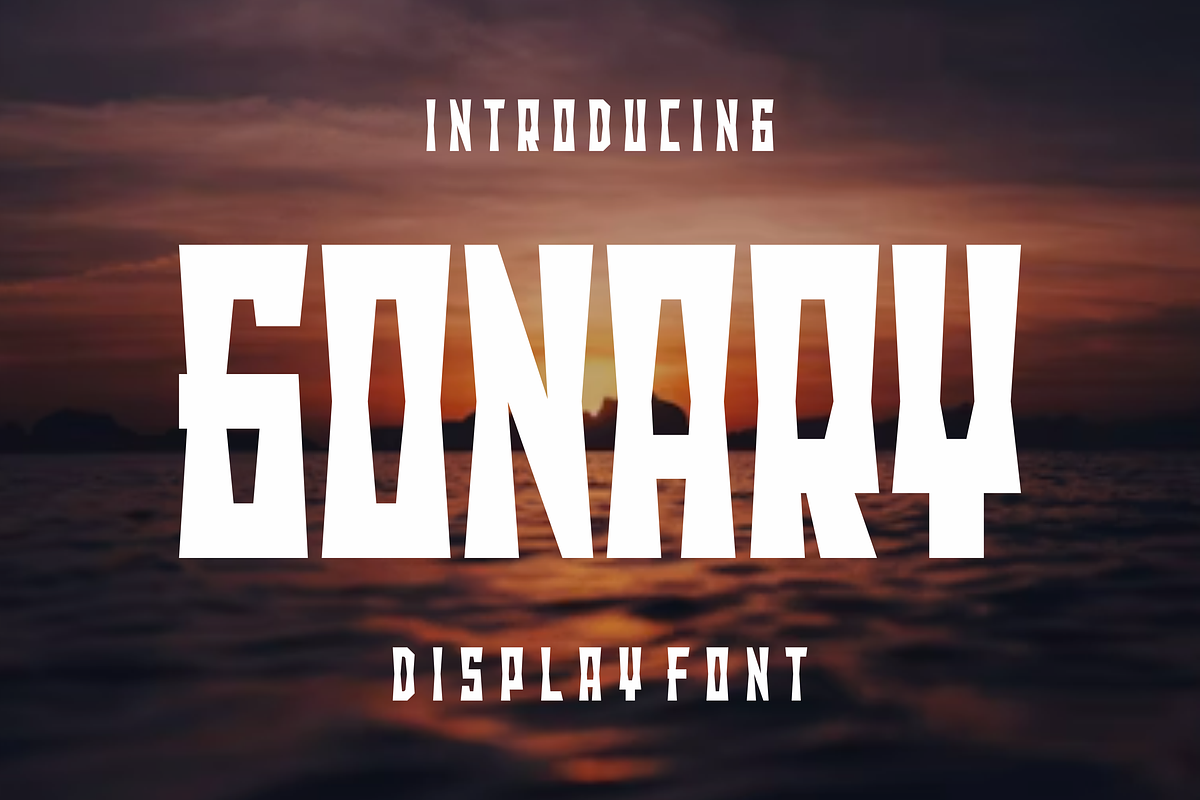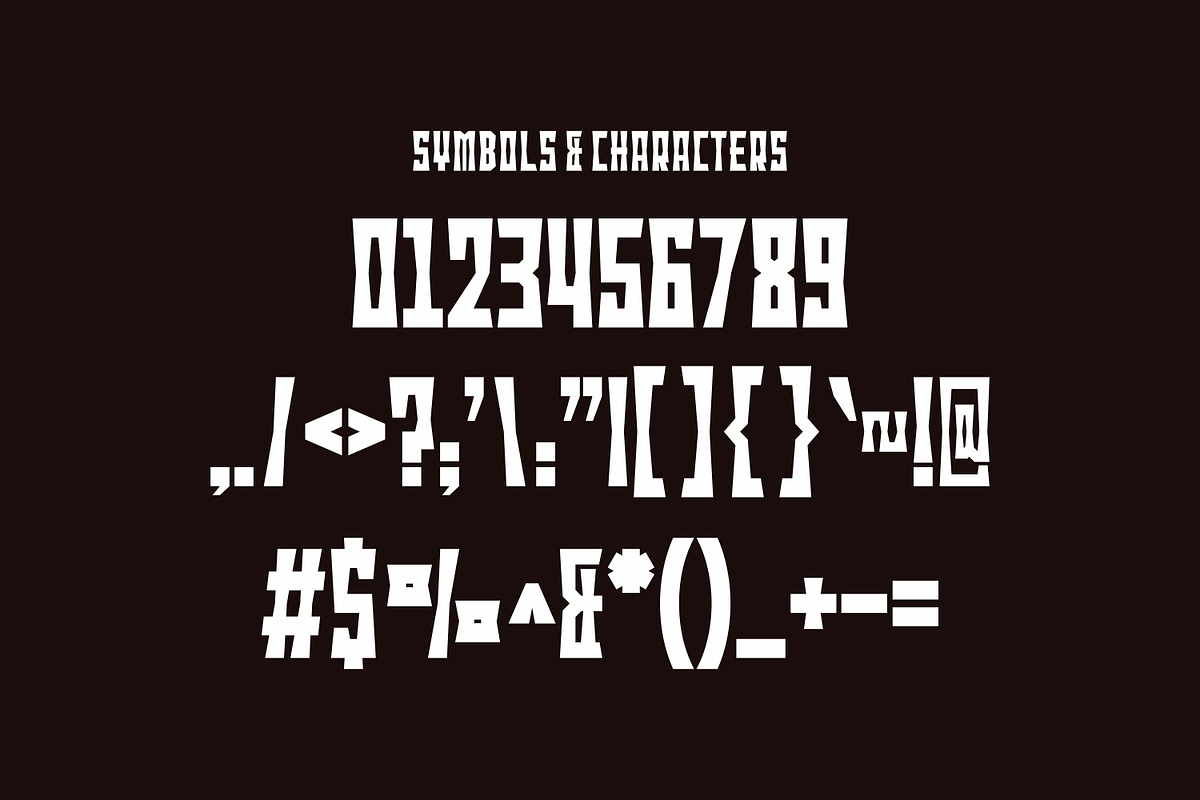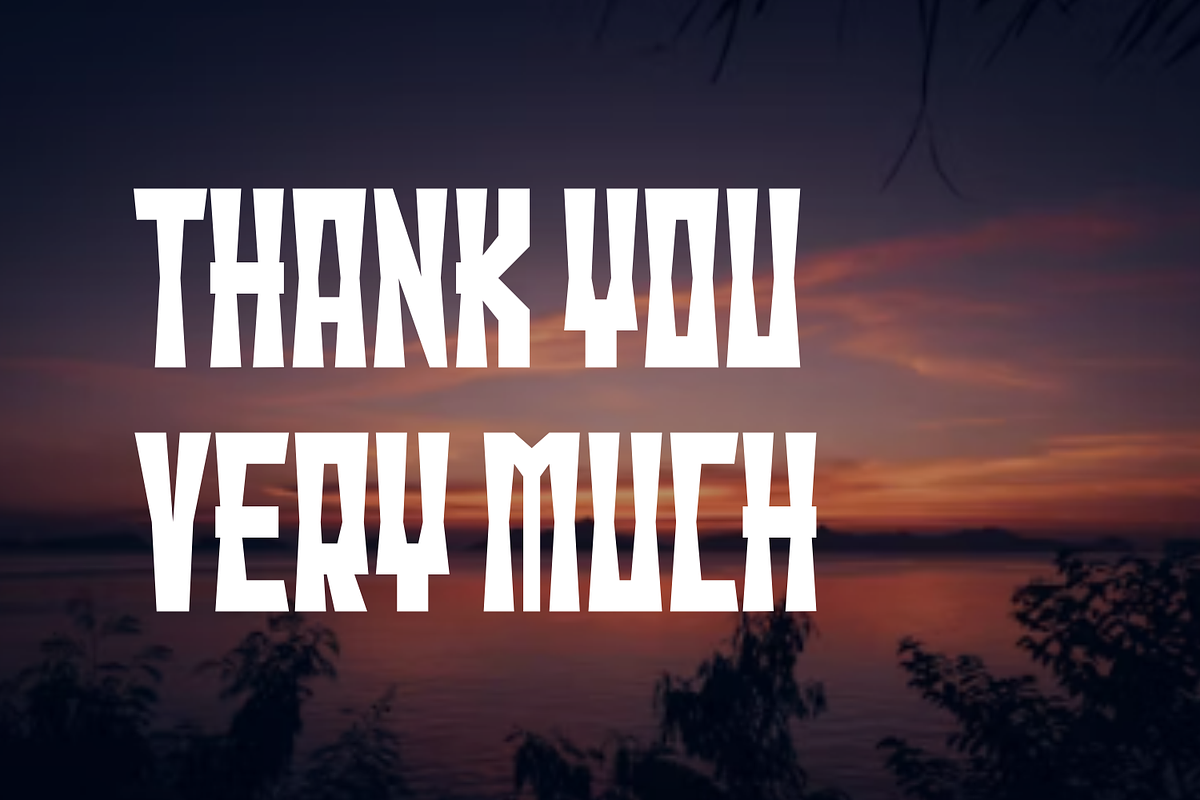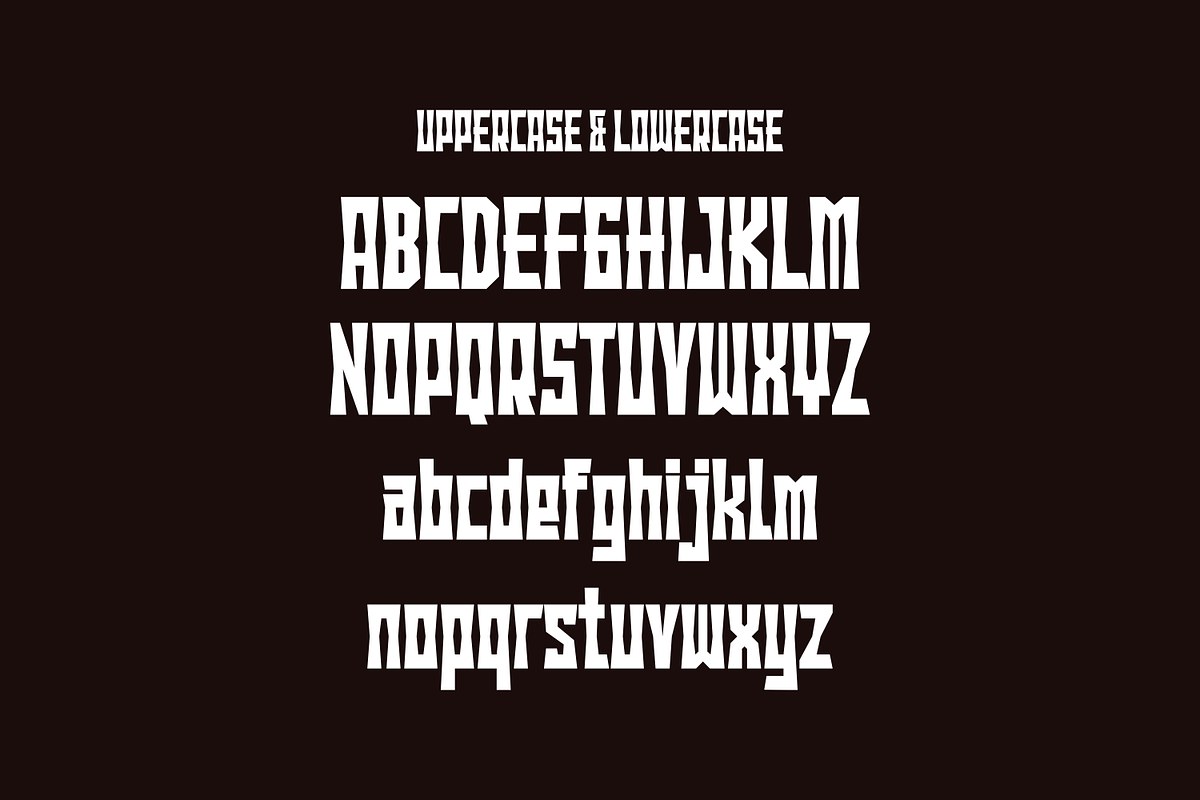
Gonary - Bold Display Font
Gonary - Bold Display Font Perfectly suited on print/screen. it’s perfect for Branding, name card, poster, logo, magazine, cover, banner, t-shirt and headers, or even large-scale artwork.